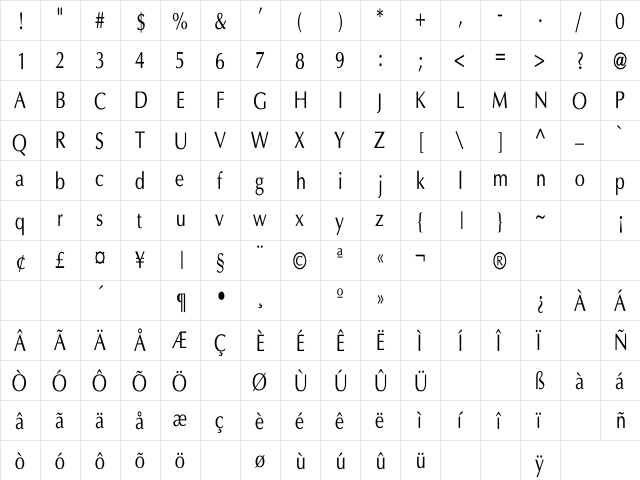
Optima Cn Regular
Design Context for Optima Cn Typeface
Optima Cn takes a measured approach to typography — its balanced proportions and neutral character make it a reliable workhorse for both digital and print work.